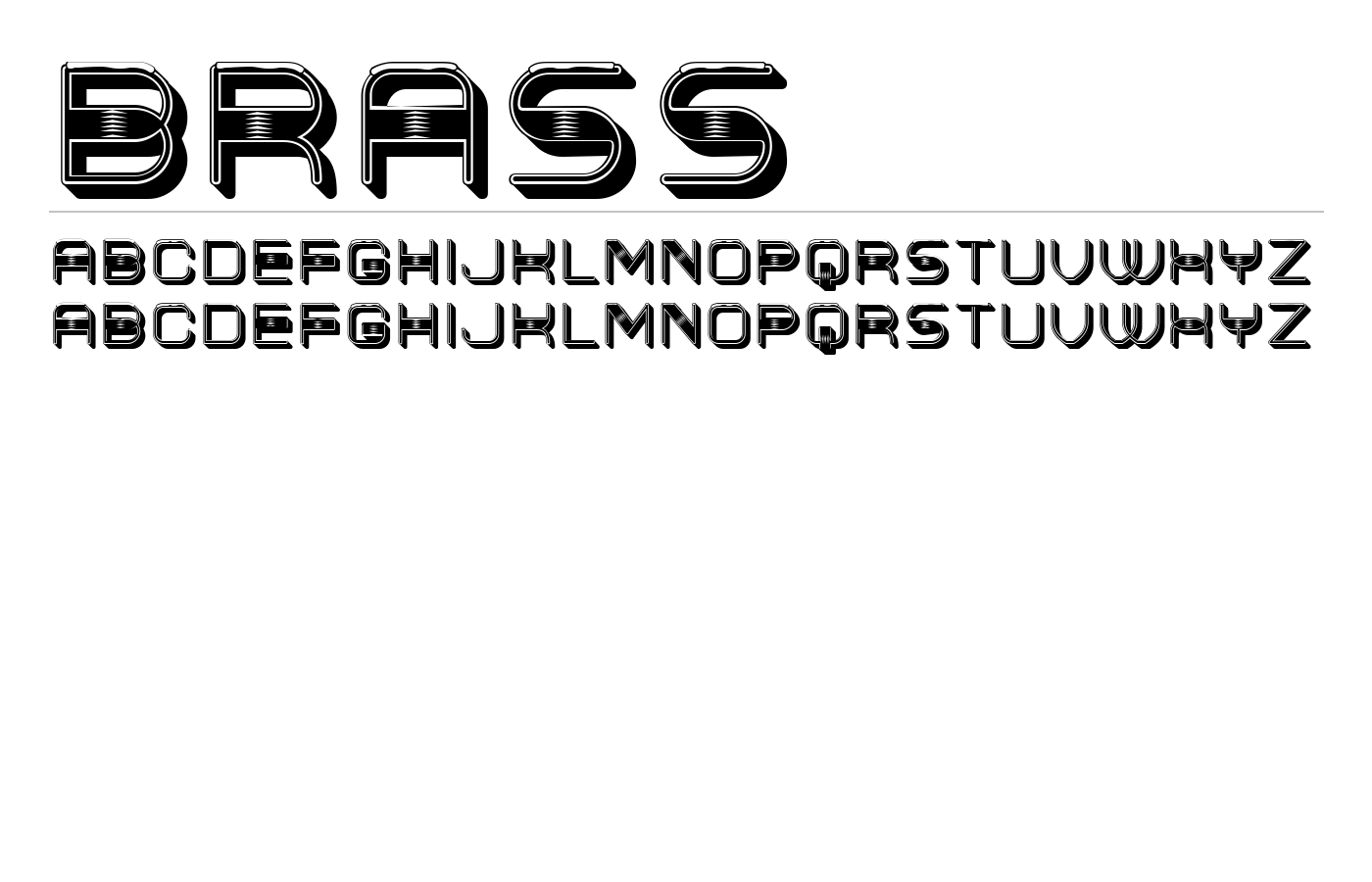
Brass Font is a bold, decorative sans serif typeface with a strong Art Deco influence, featuring geometric shapes and distinctive layered shading that create a three-dimensional metallic effect. Its uppercase-only design and high contrast between thick and thin lines give it a striking, vintage yet modern feel, making it ideal for eye-catching headlines, logos, posters, and branding projects that seek to convey luxury and sophistication. This font works especially well in fashion and entertainment contexts where a unique and stylish statement is needed.
Brass Font
About Brass Font
| Font family | Brass Font |